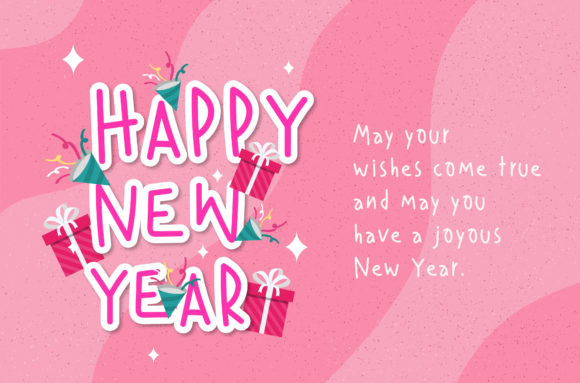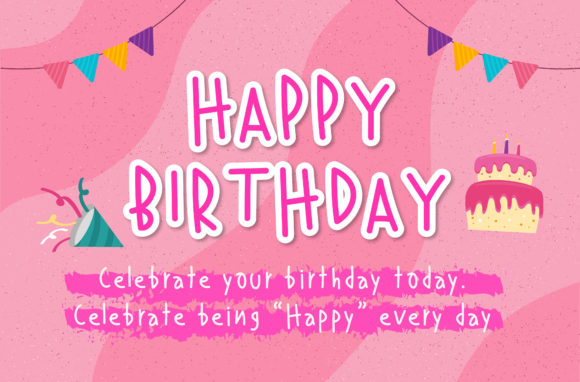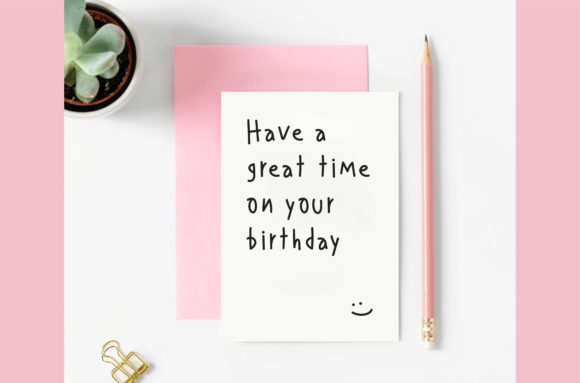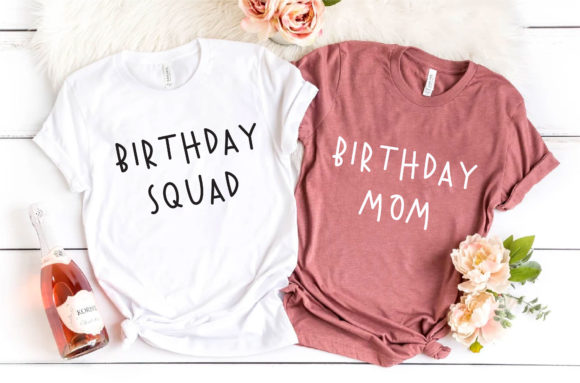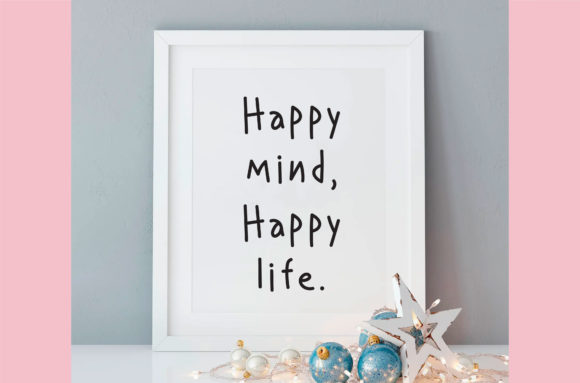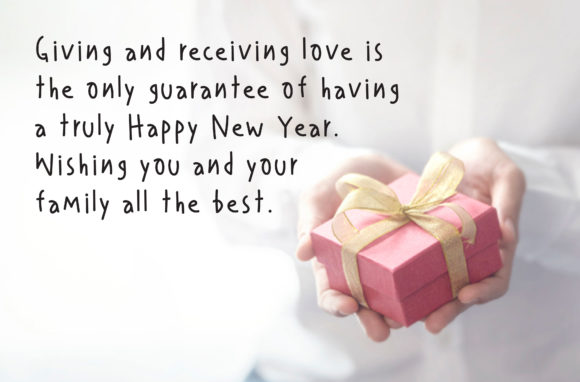
Introducing Happy Day Font: The Perfect Addition to Your Design Arsenal
Are you tired of using the same old fonts in your designs? Look no further! Happy Day Font is a stylish and quirky handwritten font that’s sure to elevate your creative projects. With its clean, thin, and smooth vibe, this font is perfect for adding a touch of personality to any design.
What Makes Happy Day Font So Special?
Happy Day Font is a unique and eye-catching font that’s designed to make your designs stand out. Its quirky and playful style makes it perfect for a wide range of projects, from quotes and shirt designs to websites and branding. The font’s clean and smooth lines ensure that it looks great in any context, whether you’re using it for a children’s design or a professional logo.
Endless Design Possibilities with Happy Day Font
One of the best things about Happy Day Font is its versatility. This font can be used for a wide range of design projects, including:
- Quotes: Add a touch of personality to your inspirational quotes with Happy Day Font.
- Shirt designs: Create eye-catching t-shirt designs that are sure to turn heads.
- Websites: Add a playful touch to your website’s typography with Happy Day Font.
- Branding: Use Happy Day Font to create a unique and memorable brand identity.
- Children’s designs: Happy Day Font is perfect for kids’ books, posters, and other designs.
- Blogs: Add a touch of personality to your blog’s typography with Happy Day Font.
- Logos: Create a unique and memorable logo with Happy Day Font.
- Invitations: Use Happy Day Font to create beautiful and eye-catching invitations.
Why Choose Happy Day Font?
There are many reasons why Happy Day Font is the perfect choice for your design projects. Here are just a few:
- Unique style: Happy Day Font has a unique and quirky style that’s sure to make your designs stand out.
- Clean and smooth lines: The font’s clean and smooth lines ensure that it looks great in any context.
- Versatility: Happy Day Font can be used for a wide range of design projects.
Tips for Using Happy Day Font
Here are a few tips for getting the most out of Happy Day Font:
- Experiment with different sizes: Happy Day Font looks great in a variety of sizes, so don’t be afraid to experiment.
- Pair it with other fonts: Happy Day Font pairs well with a variety of other fonts, so try pairing it with some of your favorites.
- Use it for headings and titles: Happy Day Font is perfect for headings and titles, so use it to add a touch of personality to your designs.
In conclusion, Happy Day Font is a stylish and quirky handwritten font that’s perfect for adding a touch of personality to your design projects. With its clean, thin, and smooth vibe, this font is sure to be a great hit for any design you want to add it to. Whether you’re a designer, crafter, or DIY enthusiast, Happy Day Font is a must-have addition to your font collection.